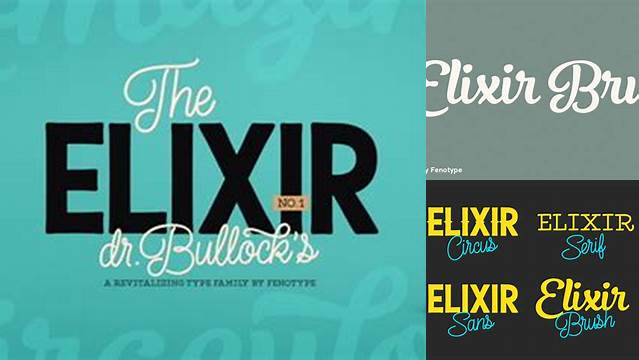
Hey guys! Are you on the hunt for a cool, stylish font that screams personality? Look no further because we're diving headfirst into the world of the Elixir Print Brush Font, and the best part? You can snag it with a free download! This font is a game-changer, adding a touch of artistic flair to any project. Whether you're sprucing up your social media, crafting a killer logo, or designing a website that pops, Elixir Print Brush Font is your secret weapon. This guide will walk you through everything you need to know, from where to get the free download to how to use it like a pro. Let's get started and unlock the creative potential of the Elixir Font!
H2: Discover the Allure of Elixir Print Brush Font
Alright, let's get down to brass tacks: what's so special about the Elixir Print Brush Font? Imagine a font that looks like it was hand-painted with a real brush. That's the magic of this font! It's got that authentic, handcrafted feel that instantly grabs attention. The slightly rough edges, the natural flow of the strokes – it all adds up to a font that's both stylish and approachable. Elixir Font is incredibly versatile, it works wonders in a variety of design contexts. You can use it to create stunning headlines that leap off the page, design eye-catching logos that make a statement, and even add a personal touch to your invitations and greeting cards. Because of its unique style, Elixir Print Brush Font is an excellent choice if you want to differentiate your brand or project from the crowd. It brings a unique and memorable visual identity that makes it the center of attention. It can be used in many different projects like a website, branding identity, posters, and many more. The Elixir Font is not just a font, it's an artistic statement. It adds a touch of creativity and makes designs more attractive. It is made for designers, entrepreneurs, and anyone who wants to make designs more unique. The font's handmade feel adds personality and style to the design, which makes the design stand out and has a memorable touch. It provides a distinctive look and lets you express your creativity. It's time to upgrade your designs and add an artistic flair that speaks to your audience. Get ready to explore the amazing possibilities that Elixir Print Brush Font offers and make your designs a visual masterpiece.
H3: The Unique Characteristics of Elixir Print Brush Font
Let's dive deeper into what makes the Elixir Print Brush Font truly special. First and foremost, it's the hand-brushed appearance. Unlike fonts that try to imitate a brush stroke, Elixir Font embraces the imperfections and nuances of actual brushwork. This results in a font that feels organic, alive, and full of character. The slight variations in stroke thickness, the subtle curves, and the uneven edges all contribute to its unique charm. Then there’s its versatility. Elixir Font isn't just a one-trick pony. It works well in a variety of design applications. Whether you're designing a logo, crafting a headline, or creating a website, this font will always be an excellent option. It's also incredibly readable. Despite its brush-like appearance, Elixir Font is surprisingly easy on the eyes. This is crucial for any font; it's not just about looking good but also being functional. Its distinctive appearance is essential to its appeal. It offers a fresh and modern perspective in a world full of the same typefaces. Elixir Font is an excellent alternative if you're bored with the same old sans-serif or serif fonts. When you incorporate this font into your designs, you add a splash of originality and help them be unforgettable. This font isn't just about aesthetics; it's about conveying emotion. The Elixir Font helps to send a message. It has the ability to evoke feelings of joy, energy, and creativity. The hand-painted aesthetic of this font gives your designs a human touch. So, you can create connections with your audience. It makes your designs stand out, giving them a unique, personal, and artistic style. Elixir Font can become a core element of your visual brand. It has the power to become a distinct design language, making your design recognizable. So, explore the uniqueness of this font. It will improve your design work by adding personality and charm to your projects.